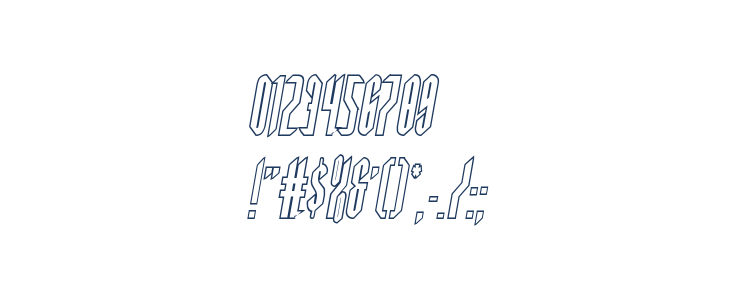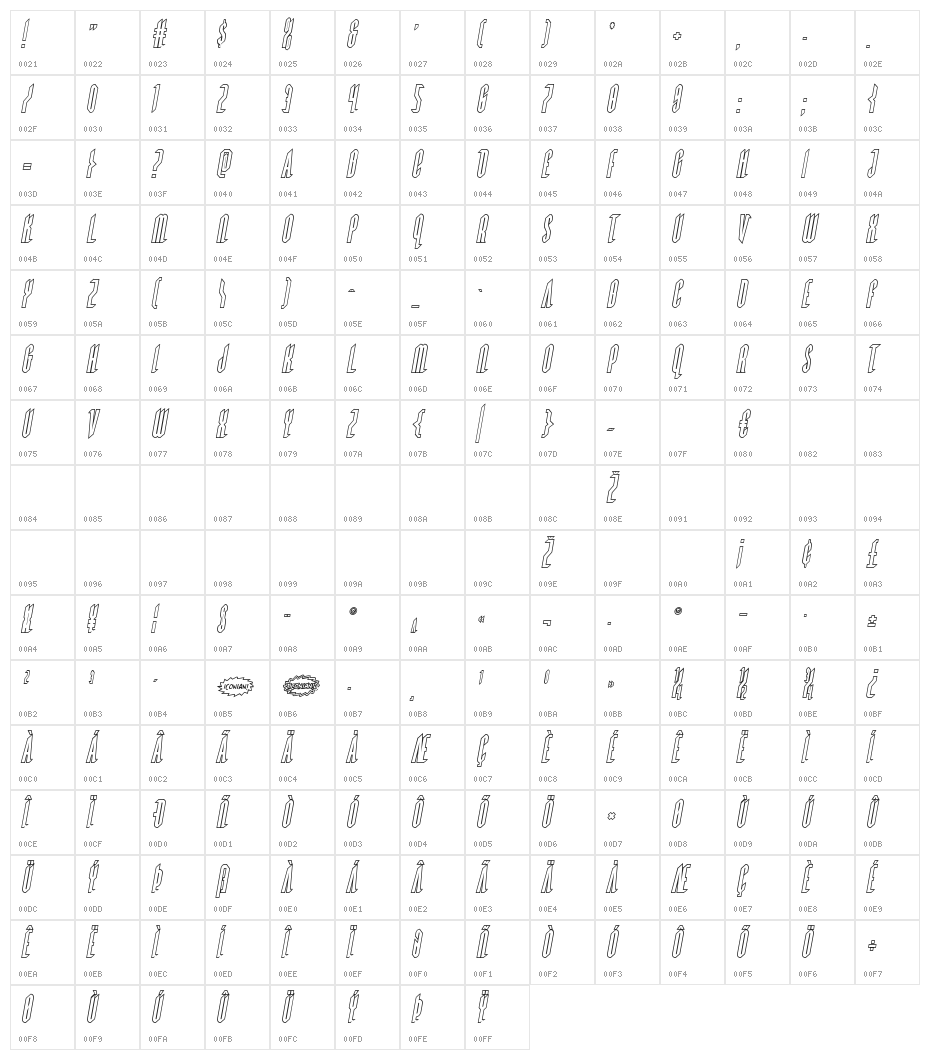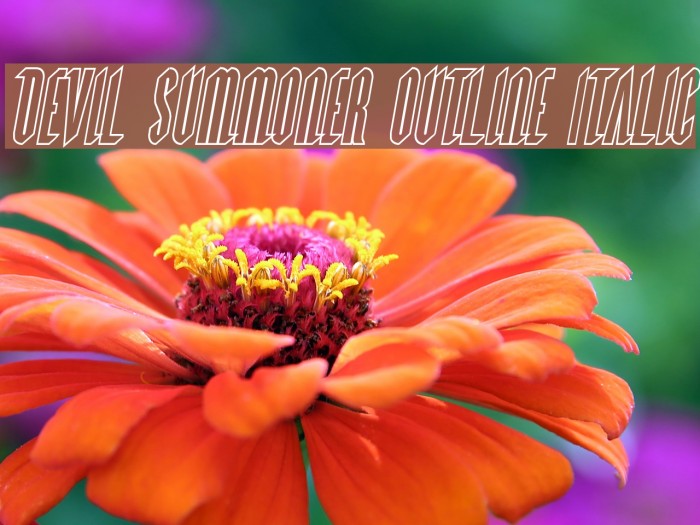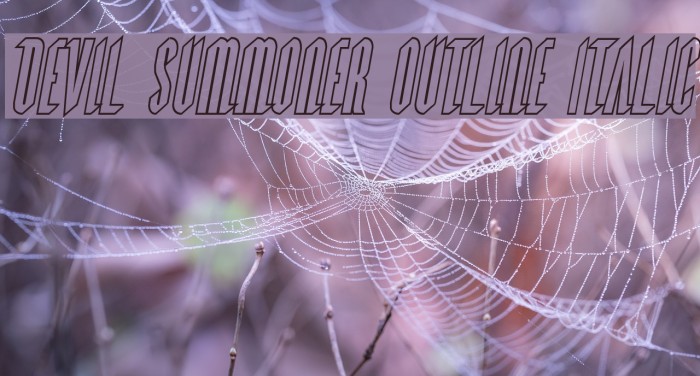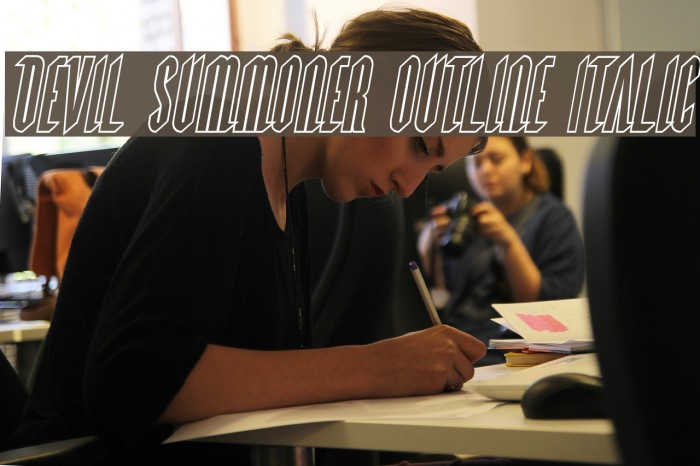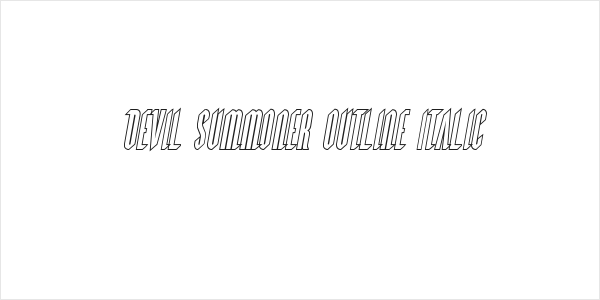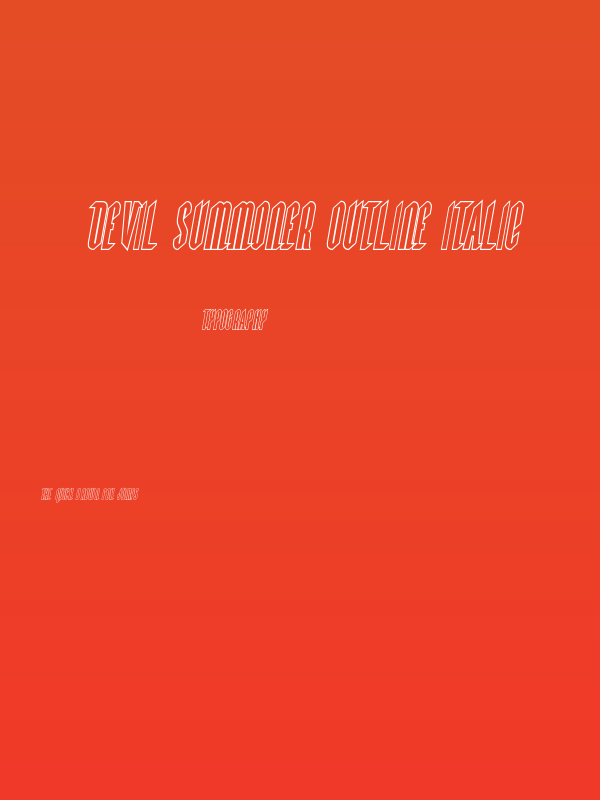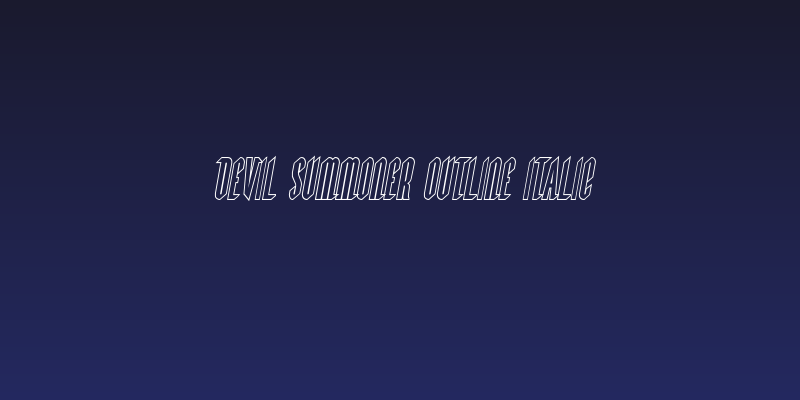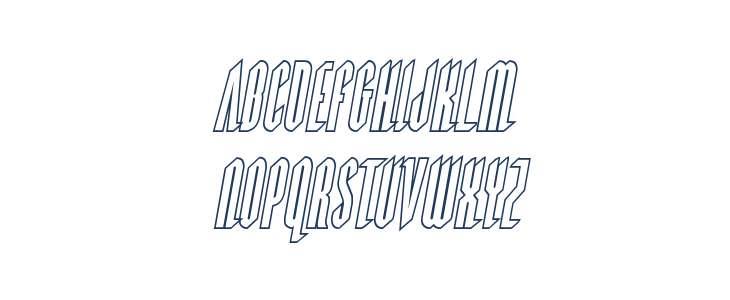
Devil Summoner Outline Italic Font
Devil Summoner Outline Italic Description
This font features a bold, italicized style with a distinct outline that gives it a striking and edgy appearance. The characters are sharply angled, creating a dynamic and energetic feel. The uppercase and lowercase letters maintain a consistent slant, enhancing the italic effect. The numbers and special characters follow the same design principles, ensuring uniformity across all glyphs. This font's outline style adds a layer of depth, making it stand out in any design. The overall look is modern and slightly aggressive, suitable for projects that require a bold statement.